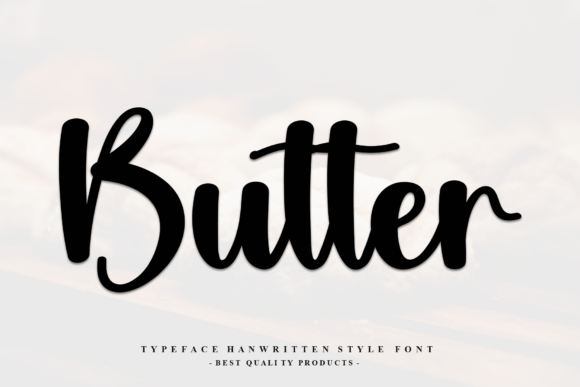
The Sweet Spot: Discovering the Charm of Butter Font
I’ll never forget the time I was working on a whimsical craft project, pouring my heart into a handmade card for a friend’s birthday. I had all the materials ready – colorful papers, glue, scissors, and a dash of creativity. But as I sat there, staring at my design, I realized something was off. The text, a crucial part of the card, just didn’t feel right. It lacked that special something that would make it pop, that would convey the playful and cheerful vibe I was aiming for. That’s when I stumbled upon Butter Font, and it was love at first sight! 💕
What I Love About Butter Font ✨
• Playful yet stylish: Butter Font strikes the perfect balance between fun and sophistication, making it ideal for a wide range of projects.
• Easy on the eyes: The casual, handwritten feel of this font is incredibly readable, even at smaller sizes.
• Versatile: Whether you’re working on a craft project, a social media graphic, or a professional presentation, Butter Font adapts beautifully.
• OpenType features: It comes with a range of stylistic alternates and glyphs, allowing for plenty of customization.
While Butter Font is incredibly versatile and user-friendly, there are a couple of things to keep in mind. Firstly, due to its playful nature, it might not be the best fit for very formal projects or those requiring a high level of professionalism. Secondly, some of the OpenType features might require a bit of experimentation to get just right, but trust me, it’s worth it!
The Story Behind Butter Font: A Designer’s Inspiration
Butter Font was created with the intention of capturing the essence of playful, everyday moments. Its designer, inspired by the simplicity and joy of handwritten notes, sought to create a font that felt both approachable and stylish. The result is a font that feels like a warm hug – comforting and inviting.
Is Butter Font suitable for professional projects? While Butter Font is incredibly versatile, its playful nature makes it more suited to projects that allow for a bit of personality. For very formal projects, you might want to consider a more traditional font.
Does Butter Font support OpenType features? Yes, Butter Font comes with a range of OpenType features, including stylistic alternates and glyphs, allowing for a high level of customization.
Is Butter Font easy to read? Absolutely! One of the key benefits of Butter Font is its readability, even at smaller sizes, making it perfect for a wide range of applications.
Butter Font has quickly become a favorite in my design toolkit, and I’m confident it can do the same for you. Its unique blend of playfulness and style makes it the perfect addition to any project looking for that special something. So go ahead, give Butter Font a try, and see how it can transform your designs! 🎉